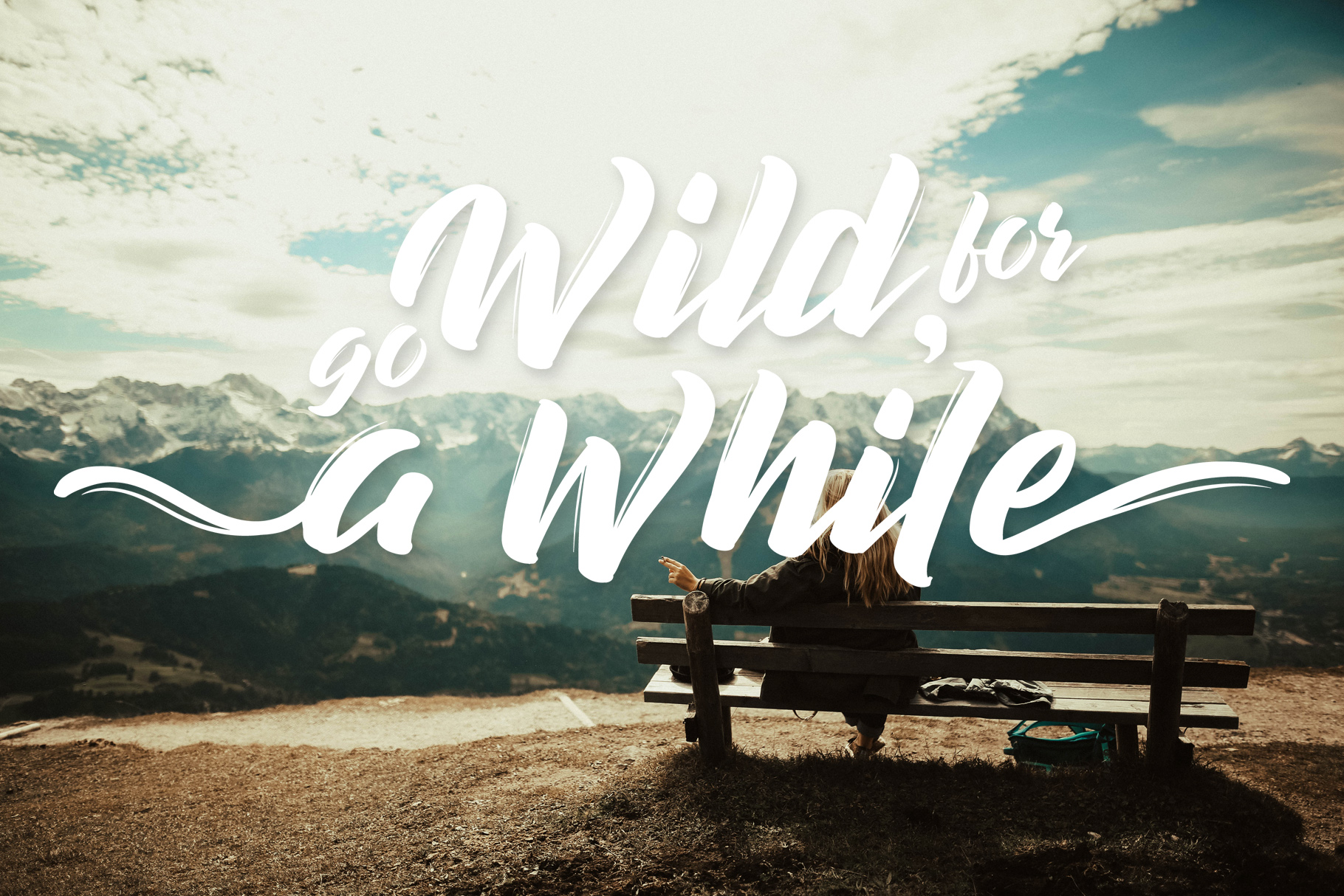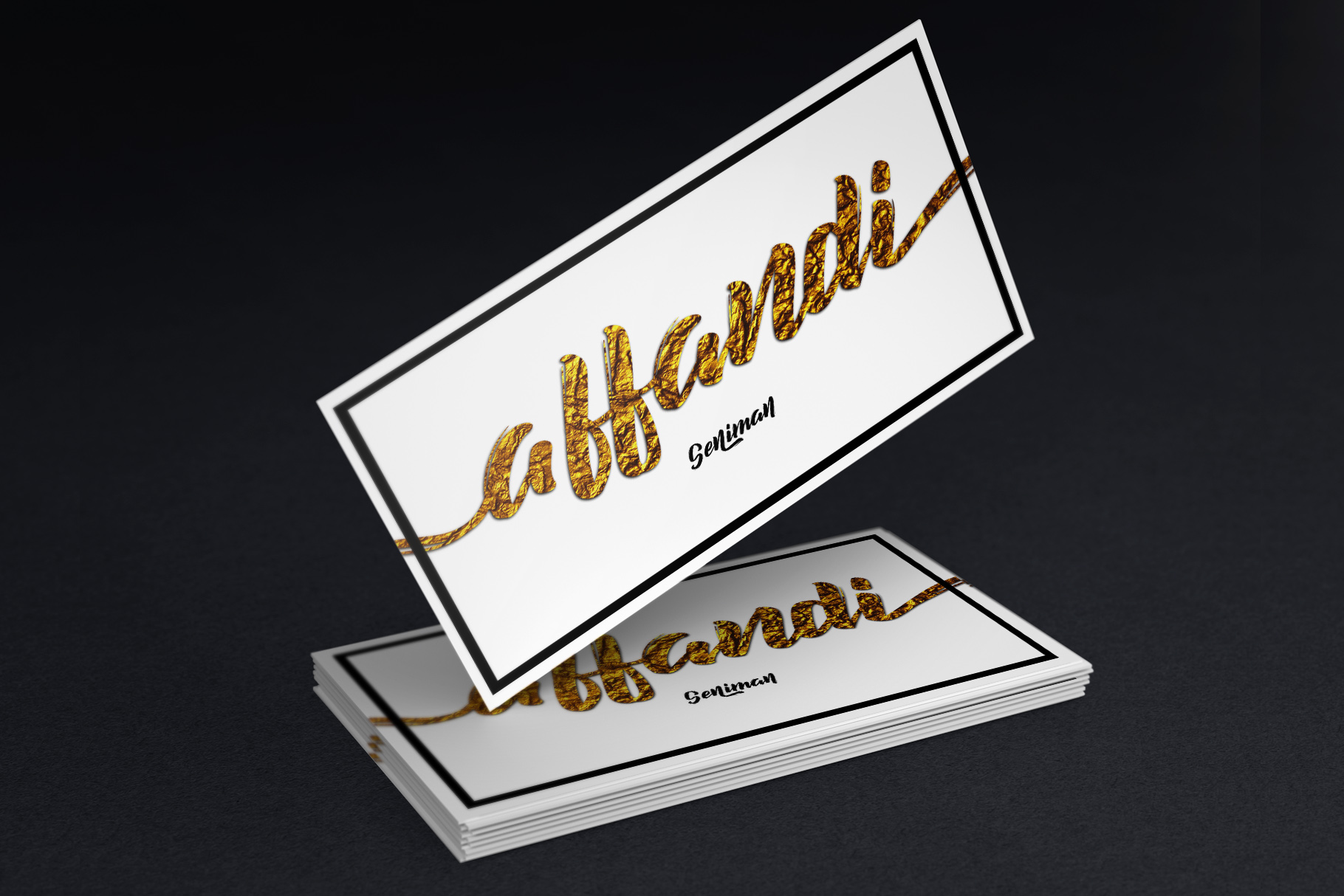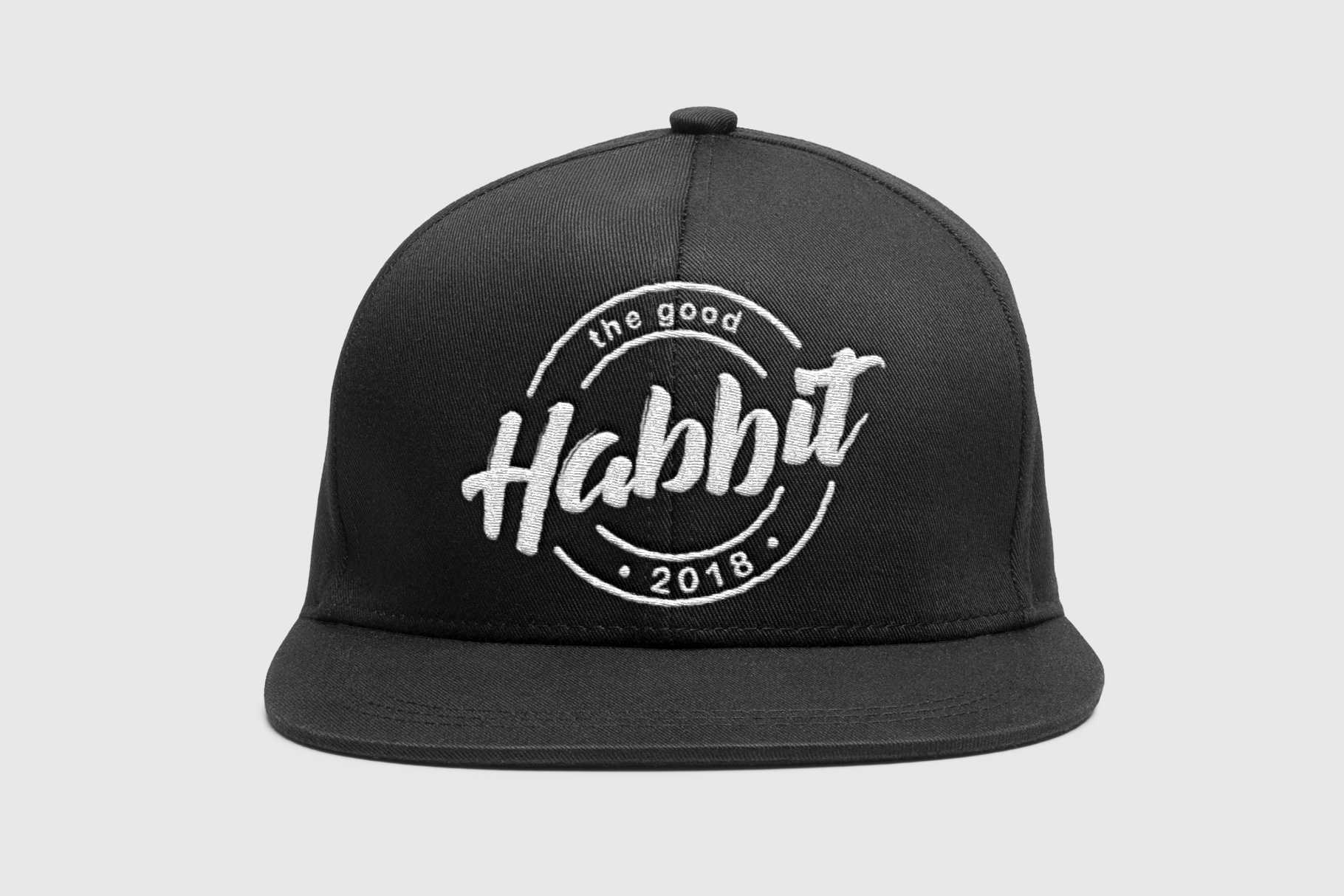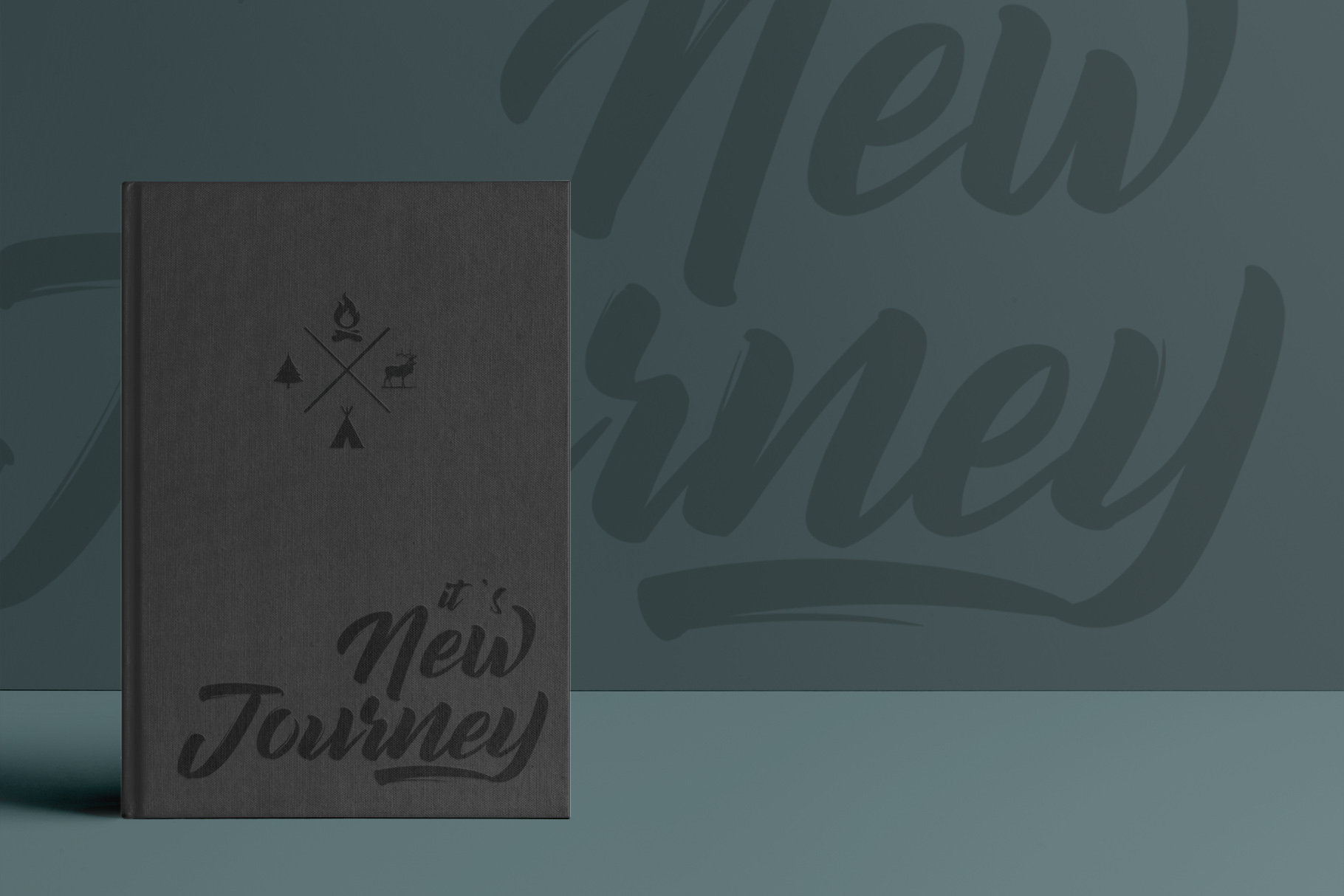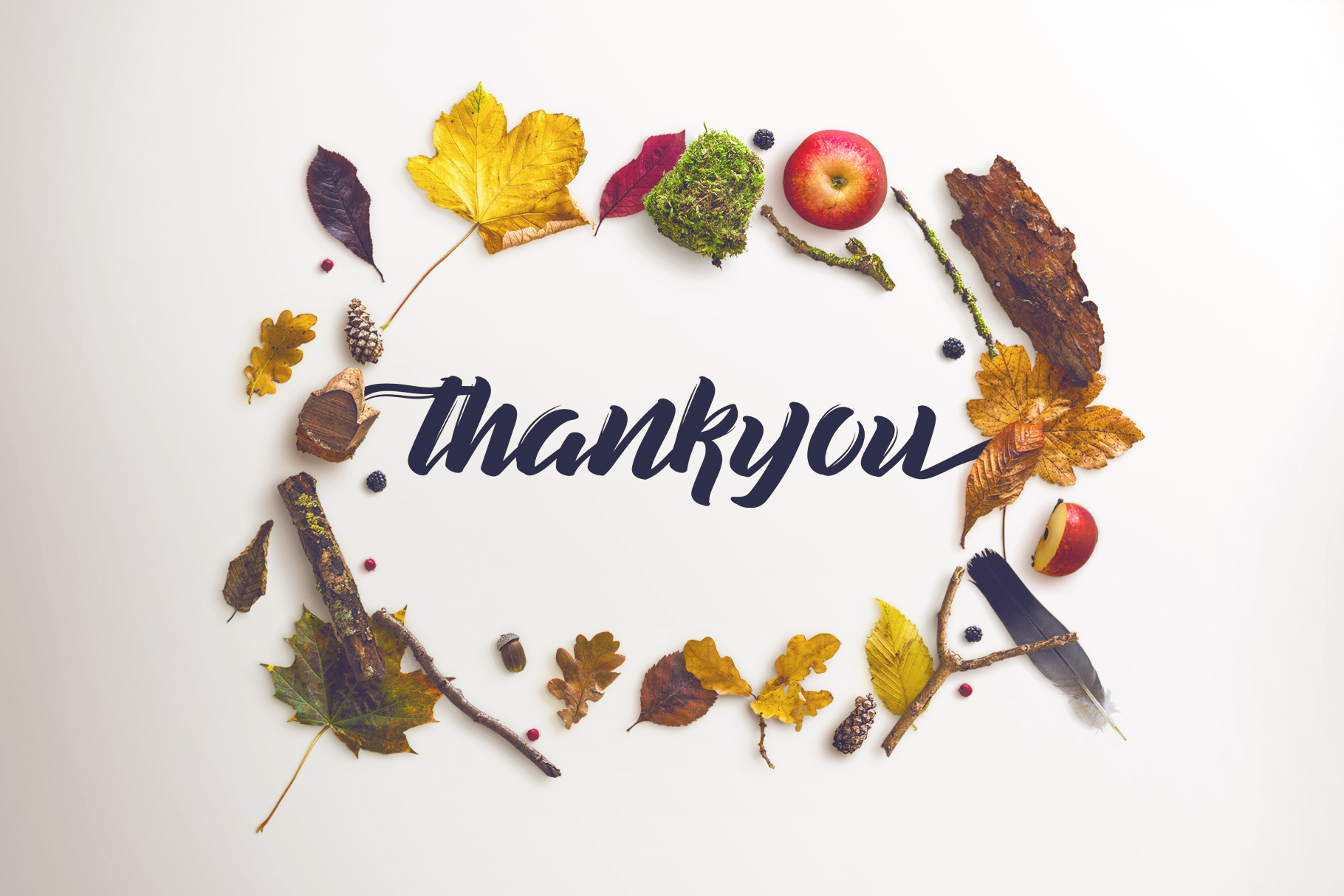
Discover the Elegance of Decalled Script Font
In the world of typography, fonts play a crucial role in conveying the tone and aesthetic of a design. For designers and crafters looking for a unique and elegant touch, the Decalled Script Font is an excellent choice. This sharp, elegant font is designed to add a touch of sophistication to any project, making it perfect for a wide range of applications.
What Makes Decalled Script Font Special?
The Decalled Script Font stands out with its beautiful, flowing script style. It features OpenType features, including upper and lower case characters, and all the features you can expect from a cute script like this. This font is not just a simple collection of letters; it’s a comprehensive set of characters designed to work seamlessly together, creating a harmonious and elegant look.
Key Features of Decalled Script Font
- OpenType Features: The Decalled Script Font takes advantage of OpenType technology, allowing for advanced typographic features. This means you can create beautiful and complex typography with ease.
- Upper and Lower Case Characters: The font includes both upper and lower case characters, providing flexibility and variety in your designs.
- Elegant and Sharp Design: The Decalled Script Font is characterized by its sharp and elegant design. It’s perfect for projects that require a touch of sophistication and class.
Uses of Decalled Script Font
The versatility of the Decalled Script Font makes it suitable for a wide range of projects. Here are some ideas on how you can use this beautiful font:
- Branding and Logo Design: Add a touch of elegance to your brand’s identity with the Decalled Script Font. It’s perfect for creating sophisticated logos that stand out.
- Stationery and Invitations: Whether you’re designing wedding invitations, business cards, or letterheads, this font will add a classy touch to your stationery.
- Digital and Print Media: Use the Decalled Script Font in your digital and print media projects, such as brochures, flyers, and social media graphics, to give them a unique and elegant look.
- Crafting and DIY Projects: If you’re a crafter or DIY enthusiast, you can use this font to add a personal touch to your projects, such as handmade cards, scrapbooking, and more.
Tips for Using Decalled Script Font
To get the most out of the Decalled Script Font, here are some tips:
- Pair with Simple Fonts: For maximum impact, pair the Decalled Script Font with simpler fonts. This contrast will make your design stand out.
- Experiment with Sizes and Colors: Don’t be afraid to experiment with different sizes and colors. The Decalled Script Font can make a statement in large sizes or add subtle elegance in smaller sizes.
- Use OpenType Features: Take full advantage of the OpenType features to add variations and uniqueness to your text.
The Decalled Script Font is a versatile and elegant addition to any designer’s toolkit. Its sharp, elegant design and comprehensive feature set make it perfect for a wide range of projects. Whether you’re a professional designer or a crafting enthusiast, this font is sure to inspire and enhance your creative work. So, why wait? Explore the possibilities of the Decalled Script Font today and take your designs to the next level.